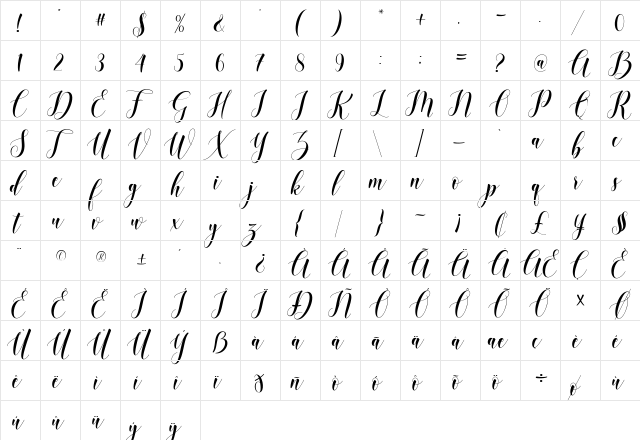
Wellcome Regular
| Foundry | Greentype |
Design Context for Wellcome Typeface
Wellcome takes a measured approach to typography — its balanced proportions and neutral character make it a reliable workhorse for both digital and print work.